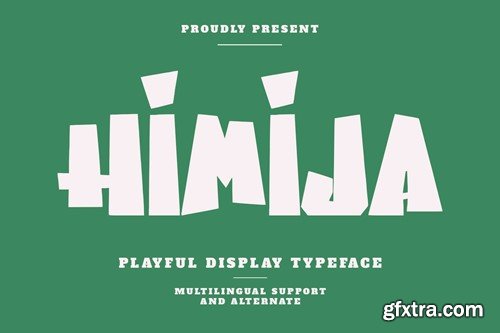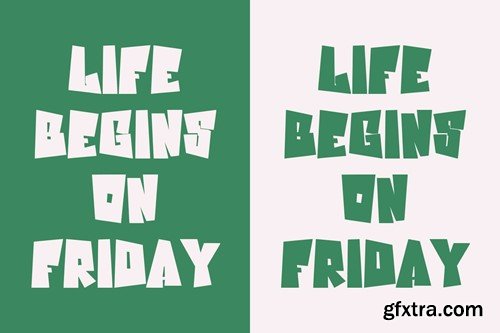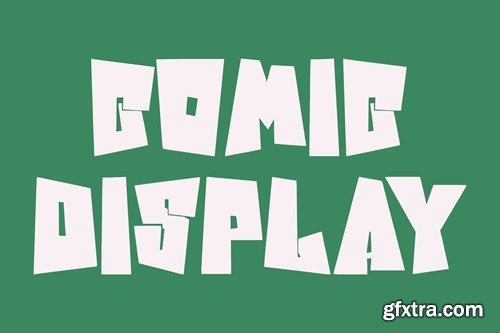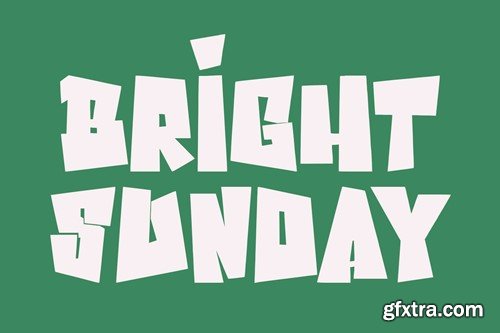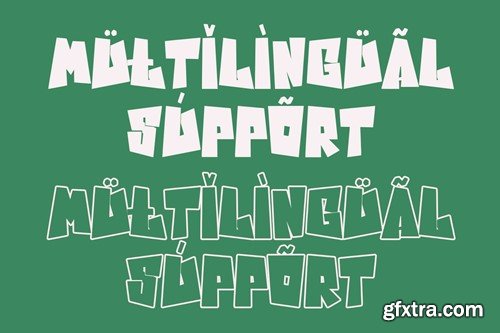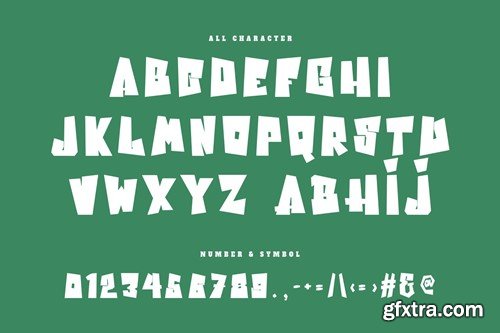
Himija Playful Display Typeface
Himija playful display typeface. Heavy stroke, fun character with a bit of ligatures. To give you an extra creative work. Himija playful display typeface support multilingual more than 100+ language. This font is good for logo design, Social media, Movie Titles, Books Titles, a short text even a long text letter and good for your secondary text font with script or serif. Make a stunning work with Himija playful display typeface. What you get: Cheers, Maulana Creative